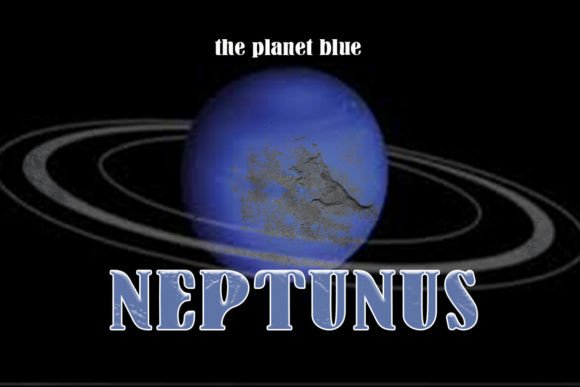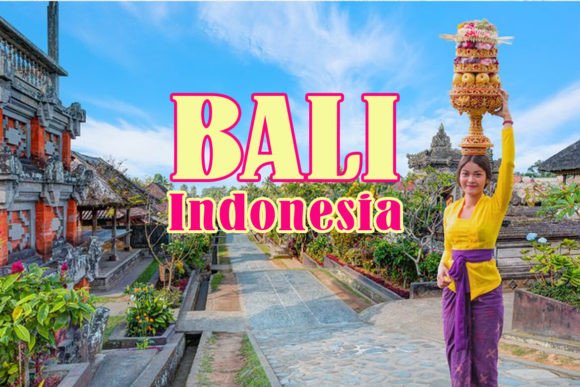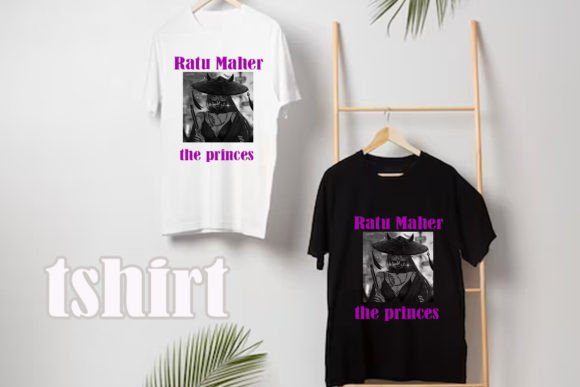
Introduction to Ratu Maher Font
Have you ever stared at a blank page, trying to come up with the perfect design for your creative project? The blank canvas can be intimidating, but the right font can make all the difference. That’s where the Ratu Maher Font comes in – a high-quality, bold font that can bring your brand to life and add a touch of modernity, fun, and style to your work.
Whether you’re a designer looking for a new design resource or a small business owner trying to create a stunning logo, the Ratu Maher Font is the perfect solution. With its free download and transparent background, you can easily integrate it into your design without any hassle. Plus, its versatility makes it perfect for creating titles, logos, menus, social media graphics, and more.
Key Features of Ratu Maher Font
- High-quality, professional font suitable for various creative projects, including graphic design and digital art.
- Includes a transparent background, allowing for seamless integration with various design elements and backgrounds.
- Features a unique, stylish design that can add a touch of elegance to any project, making it an excellent choice for high-end creative projects.
- Available in a single size and resolution, making it easy to use and customize in various design applications.
- Perfect for designers, artists, and creatives working on a wide range of projects, from logos and branding to digital art and graphics.
Honest Review: Ratu Maher Font
I recently had the chance to work with the Ratu Maher Font, and I must say it’s been a game-changer for my creative project. This font has been a top-notch addition to my design resource library, and I’m excited to share my thoughts on it.
- High-quality design: The Ratu Maher Font boasts a sophisticated and elegant design that’s perfect for any project.
- Transparent background: The font’s transparent background makes it easy to layer and combine with other design elements.
- Limited font sizes: I found that the font’s design can become slightly distorted when scaled up to larger font sizes.
- Not suitable for bold headings: The font’s design is best suited for body text, as it can become overwhelming when used for bold headings.
Overall, I’m impressed with the Ratu Maher Font. While it has some limitations, its high-quality design and transparent background make it a valuable addition to my design resource library. If you’re looking for a reliable font for your next creative project, I’d definitely recommend giving it a try – especially since it’s available for free download.
Using Ratu Maher Font in Creative Projects
Designing with Ratu Maher Font
When designing with Ratu Maher Font, consider using a transparent background to create a clean and minimalist look. This font is ideal for creating headings, titles, or short paragraphs in your design project. You can also combine it with other fonts to create a unique and eye-catching visual effect.
Common Use Cases for Ratu Maher Font
Ratu Maher Font is suitable for a wide range of creative projects, including:
- Brochures and flyers
- Posters and banners
- Web design and UI/UX projects
Does the Ratu Maher Font have a transparent background, and how can I use it in my design projects?
Yes, the Ratu Maher Font has a transparent background, making it ideal for use in design projects that require a clean and minimalist look. You can use the font in conjunction with a transparent background image or shape to create a seamless and professional design.